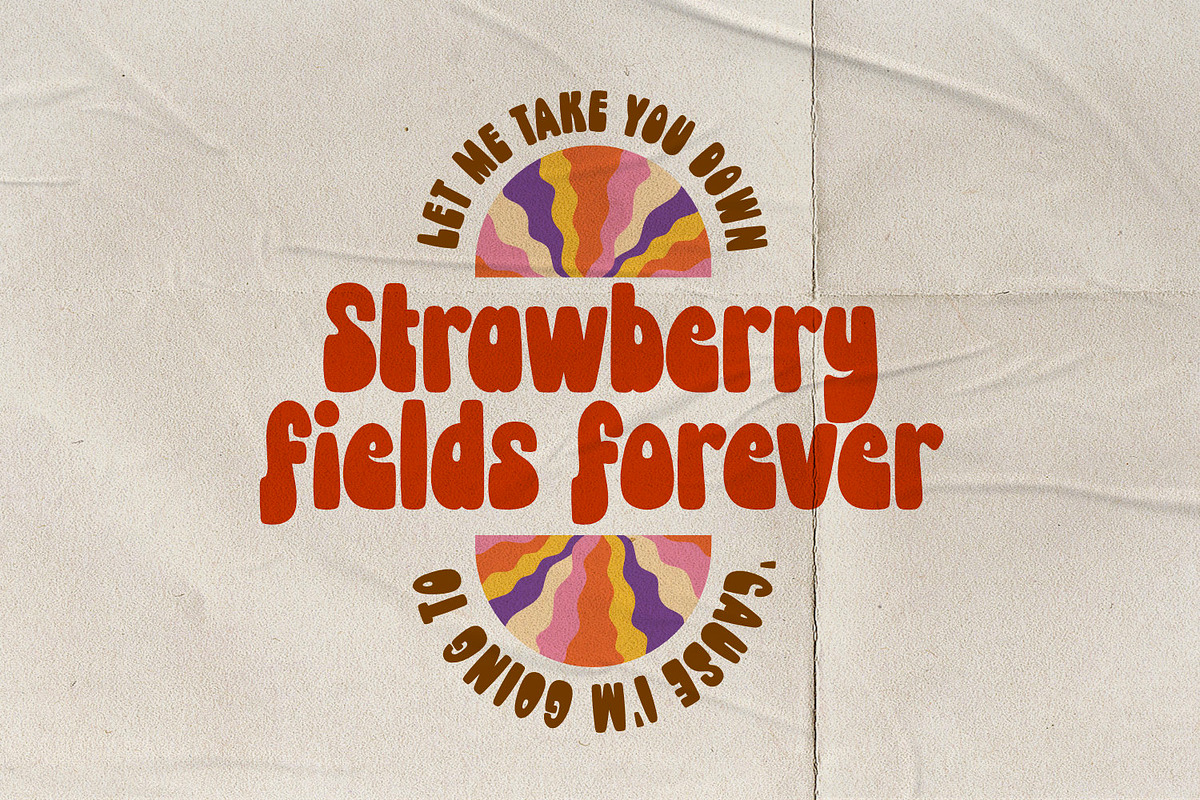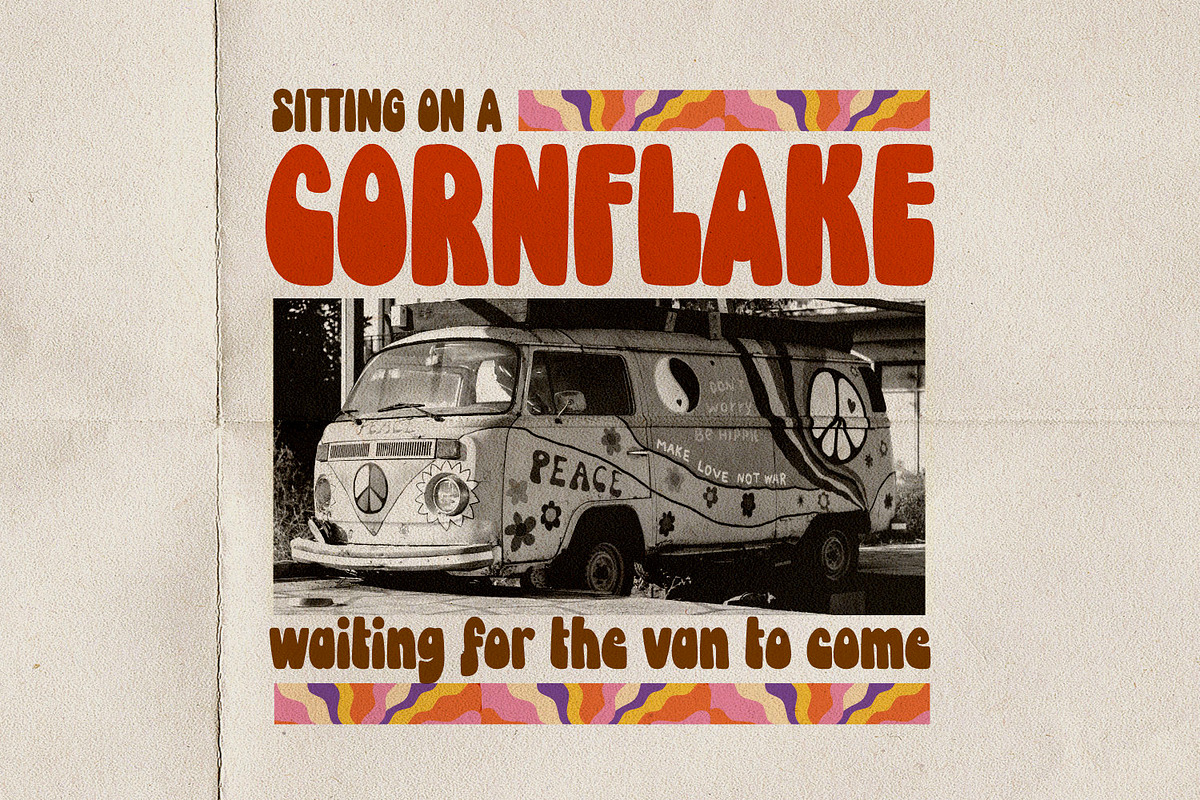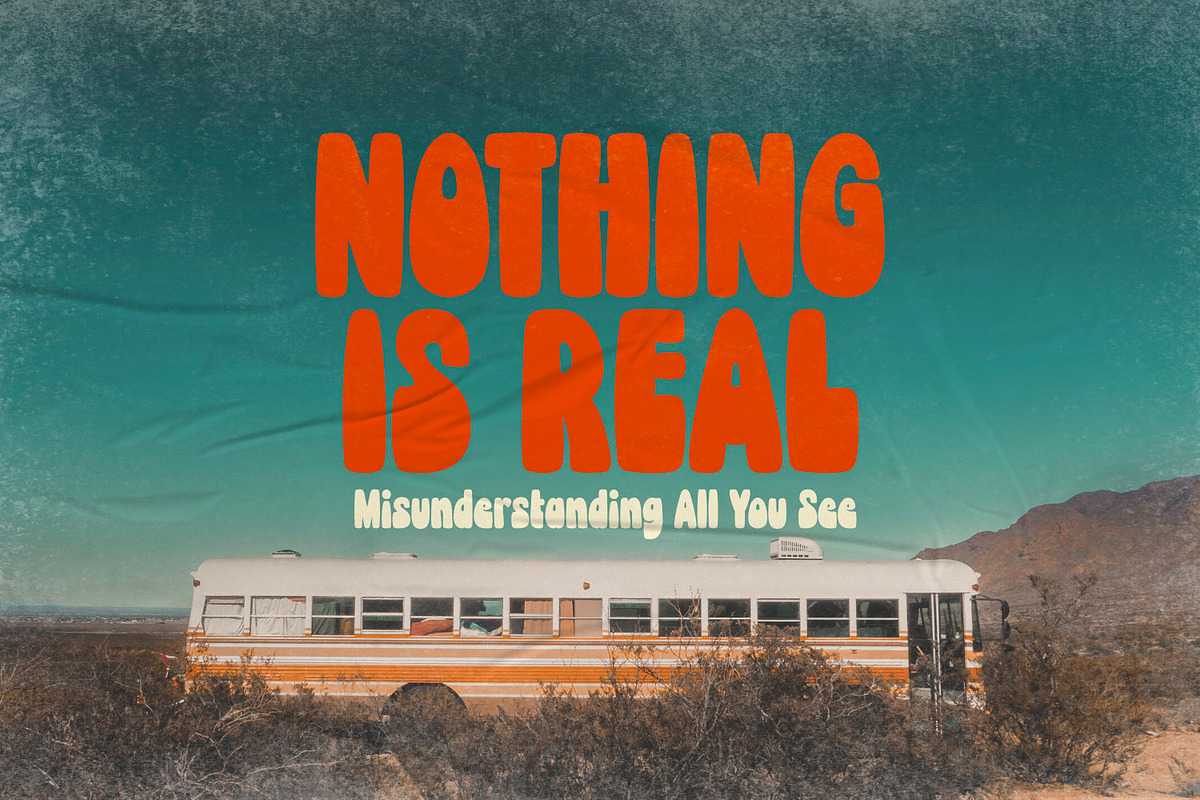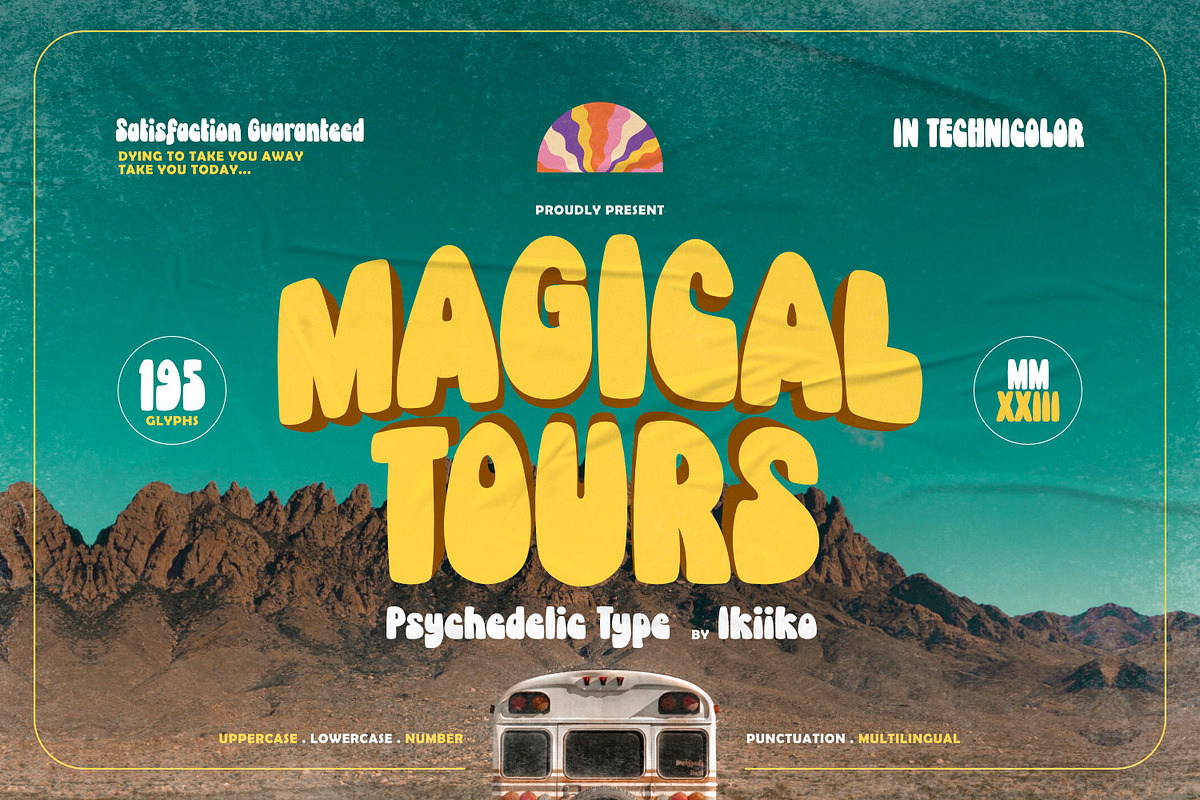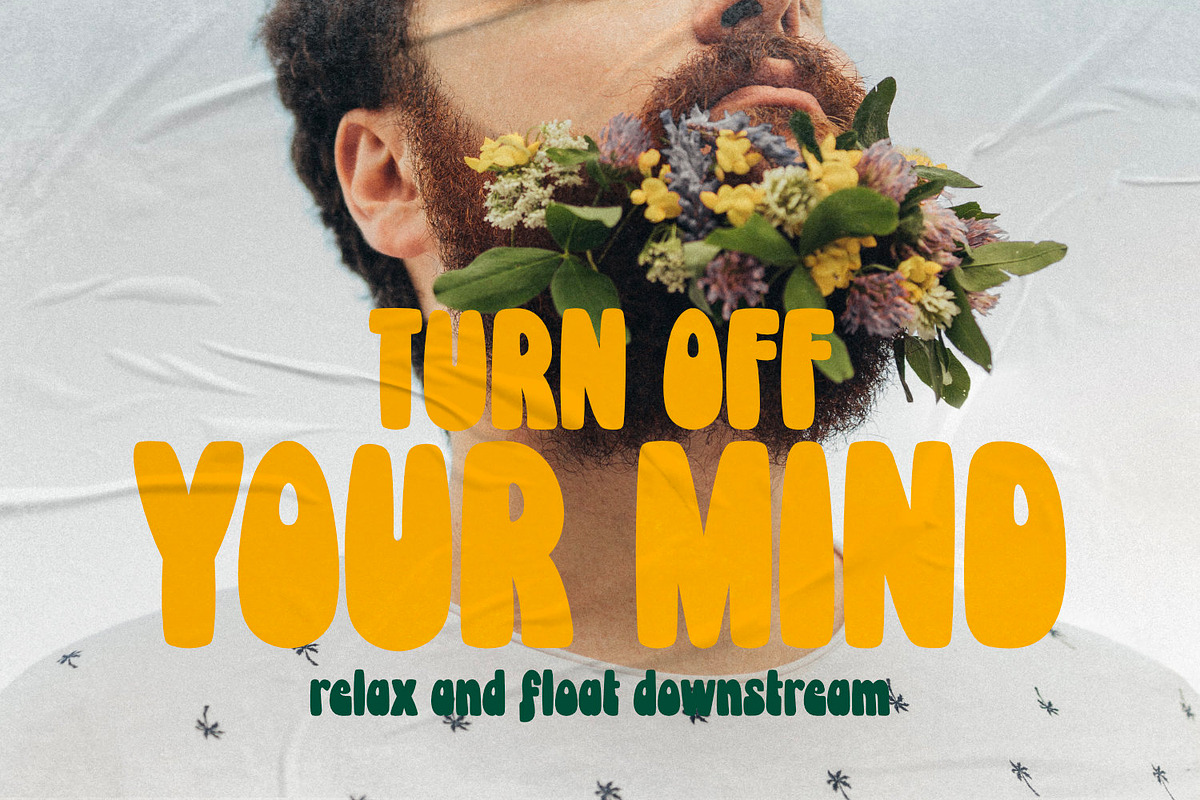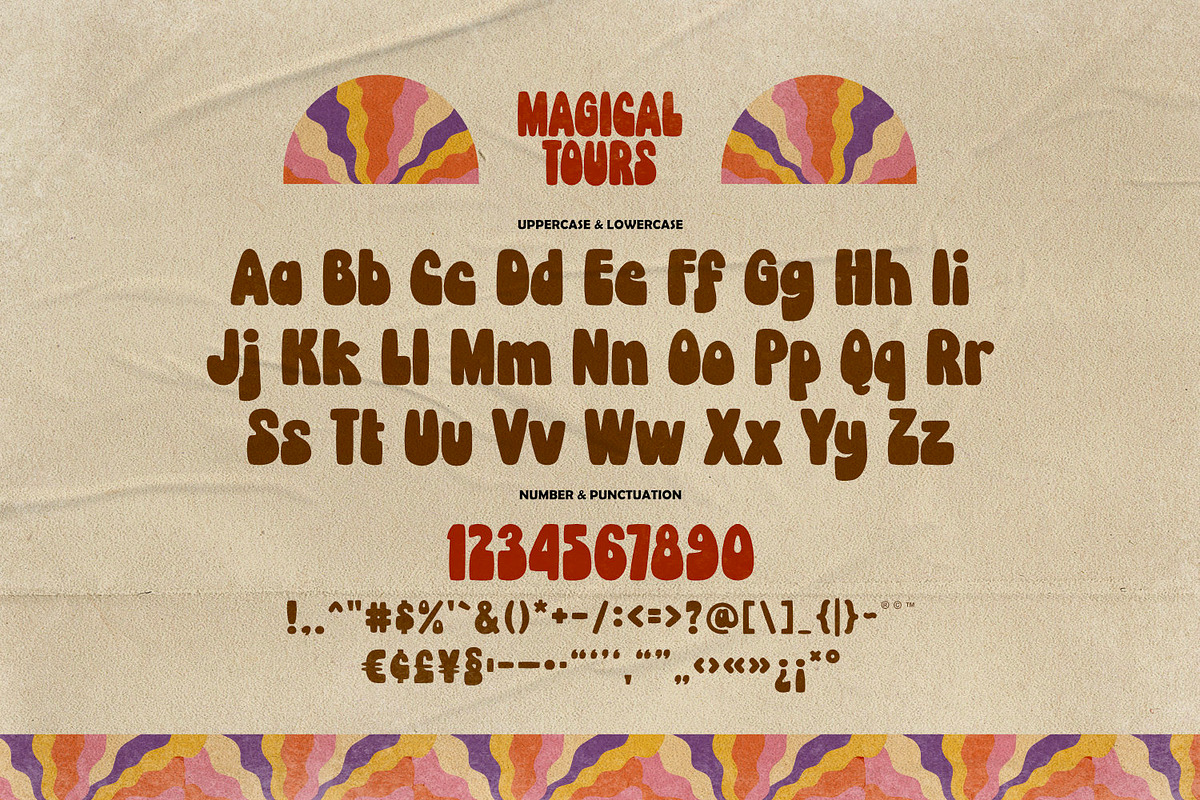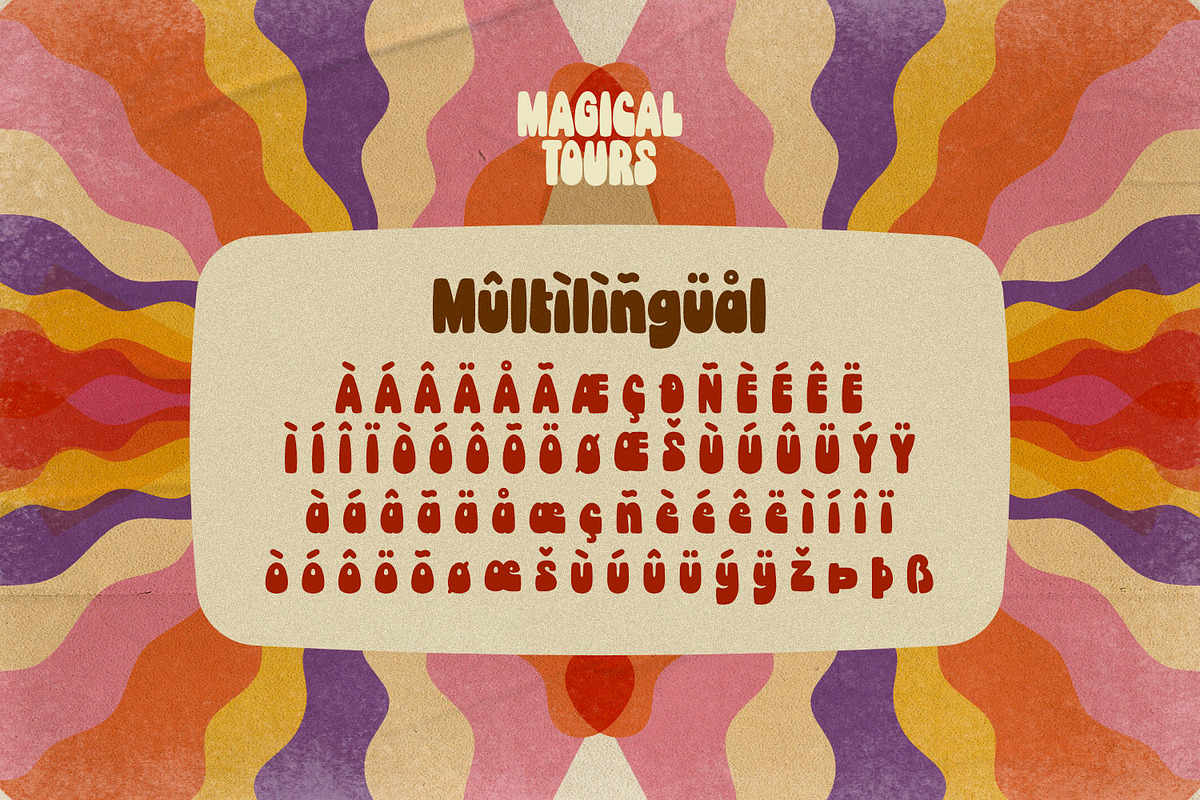
Magical Tours - Psychedelic Type
Proudly Present Magical Tours - Psychedelic Type, created by ikiiko.
Magical Tours is a stunning typeface with the retro appeal and allure of a psychedelic design. This distinctive bottom thickness typeface takes you on a fantastic journey through time while still maintaining a timeless aesthetic.
Magical Tours, inspired by the writing styles of the 60s, where the psychedelic trend perfectly encapsulated the restless essence of youth at the time. This font has a distinct personality due to its inventive mix of vintage components and psychedelic influences, making it ideal for evoking the romance of the past.
This typeface is perfect for an vintage stuff, retro poster layout, fashion ads, book cover, packaging, food & beverages and also good for quotes, or simply as a stylish text overlay to any background image.